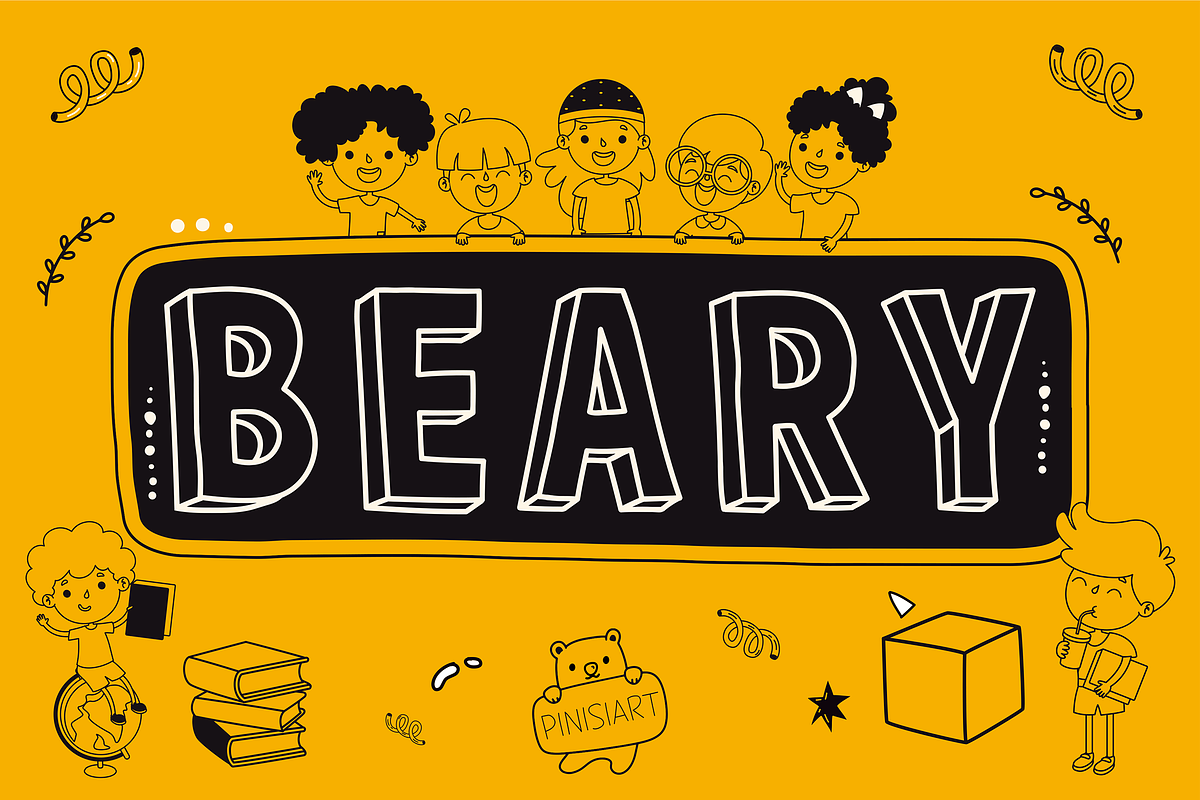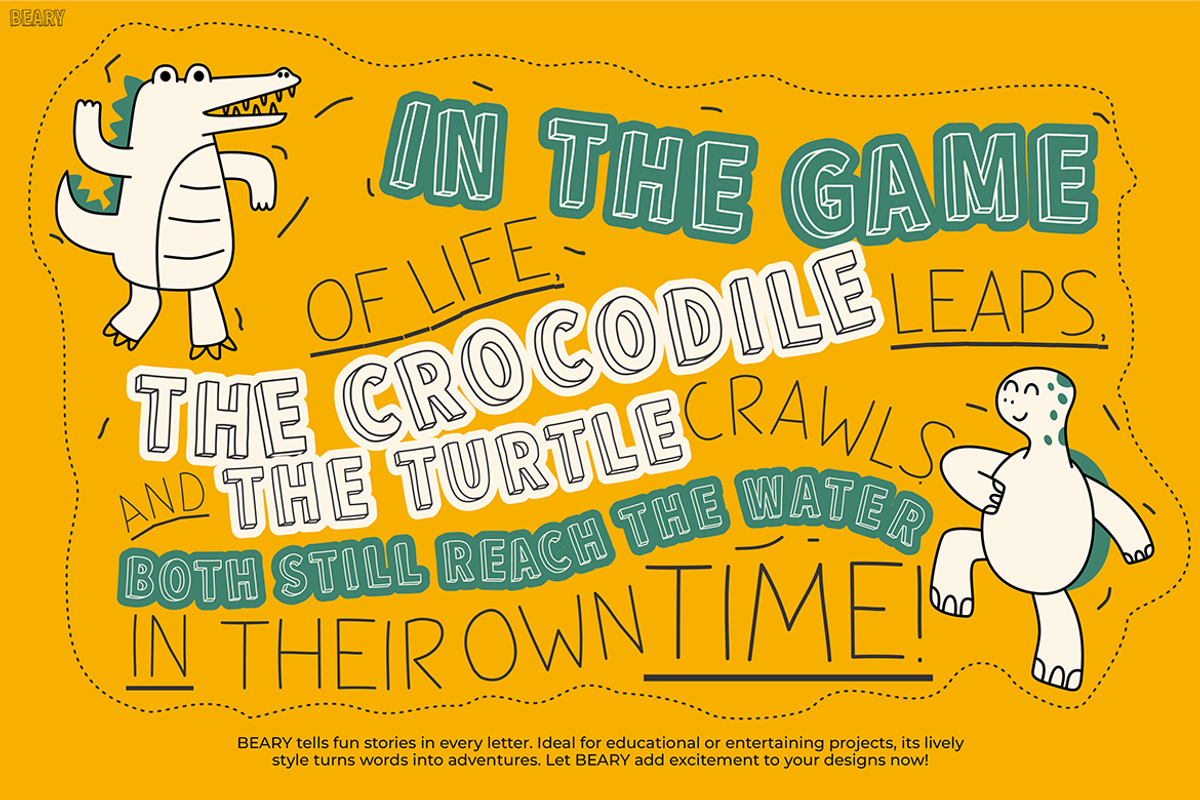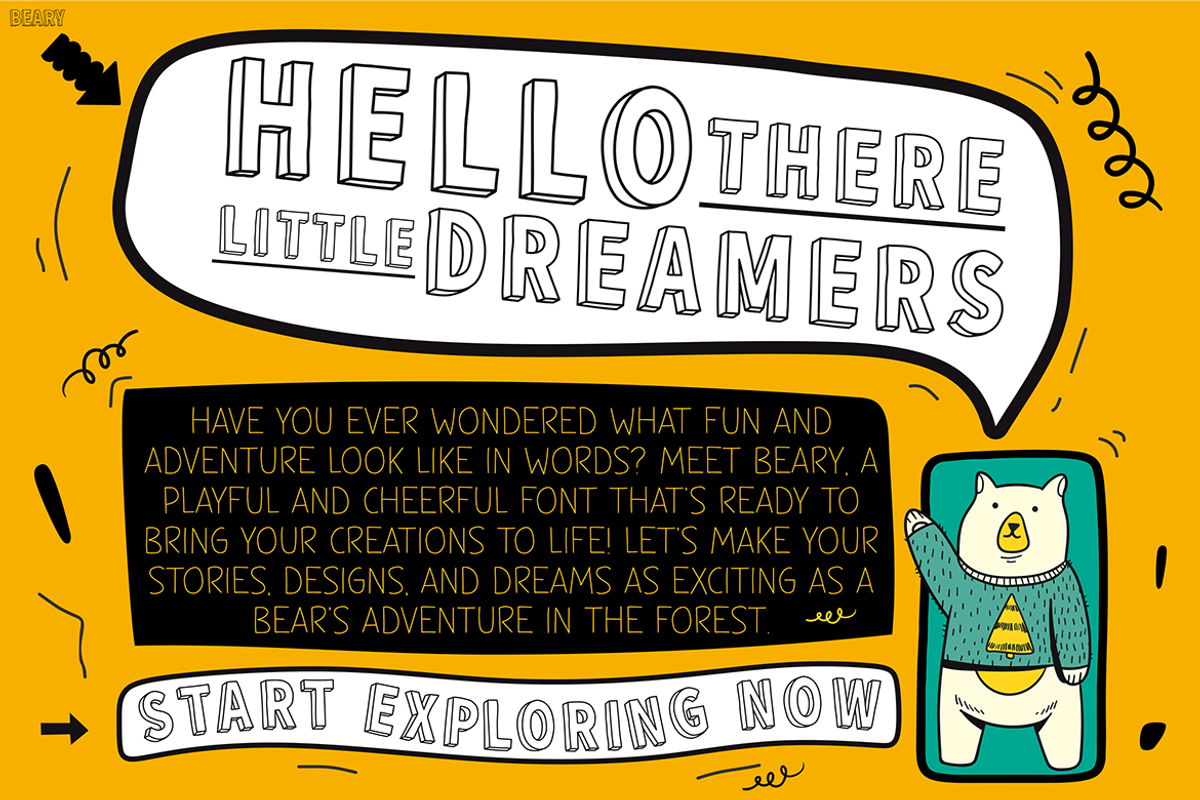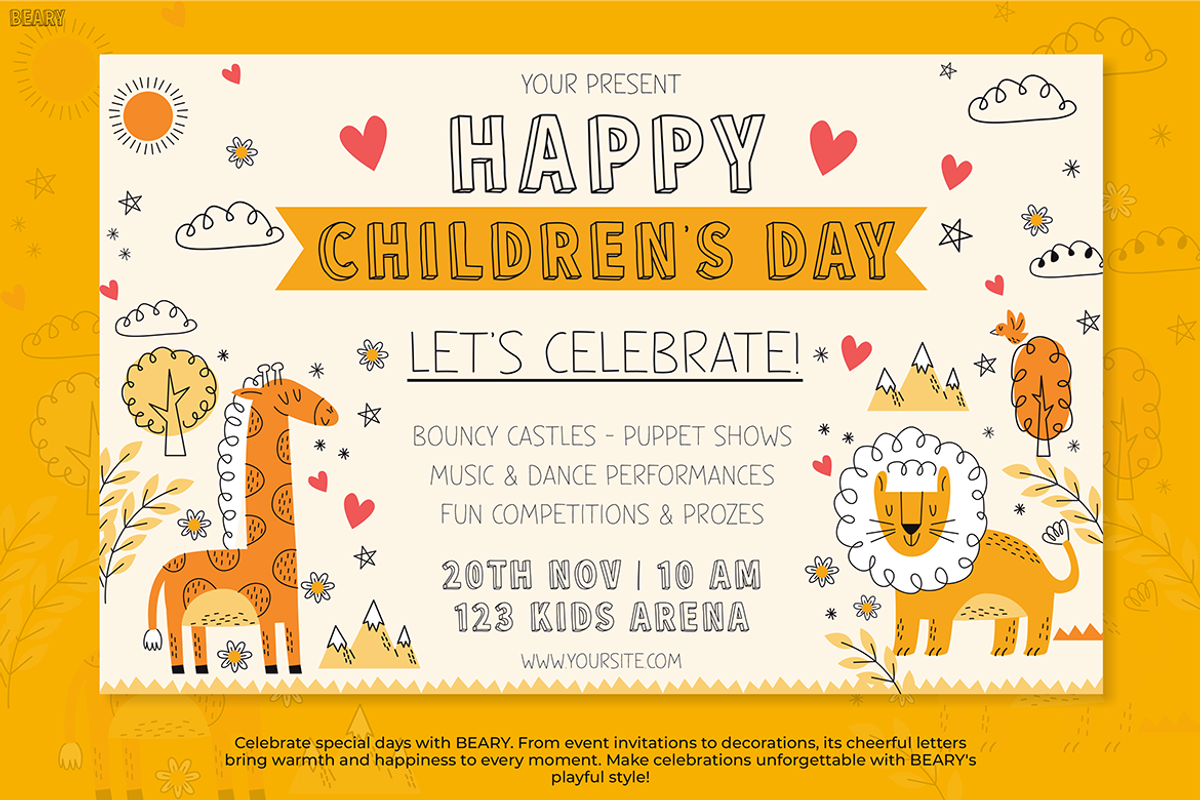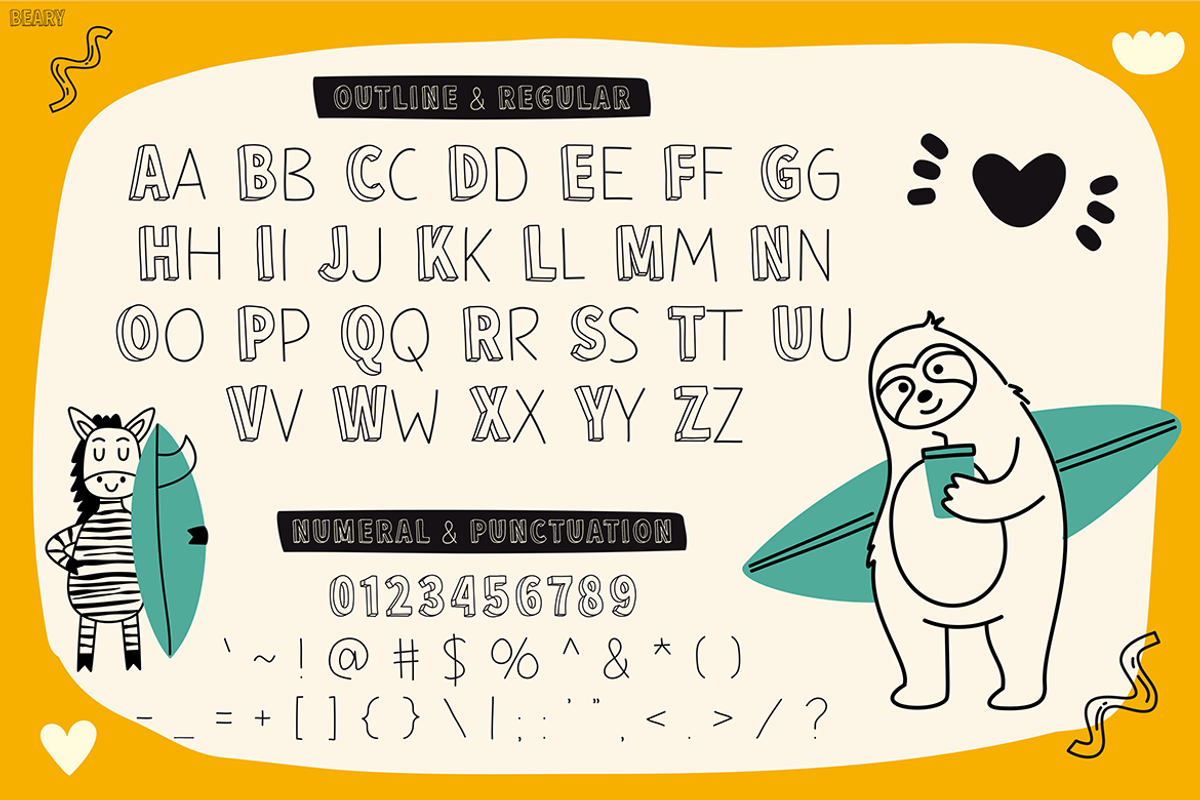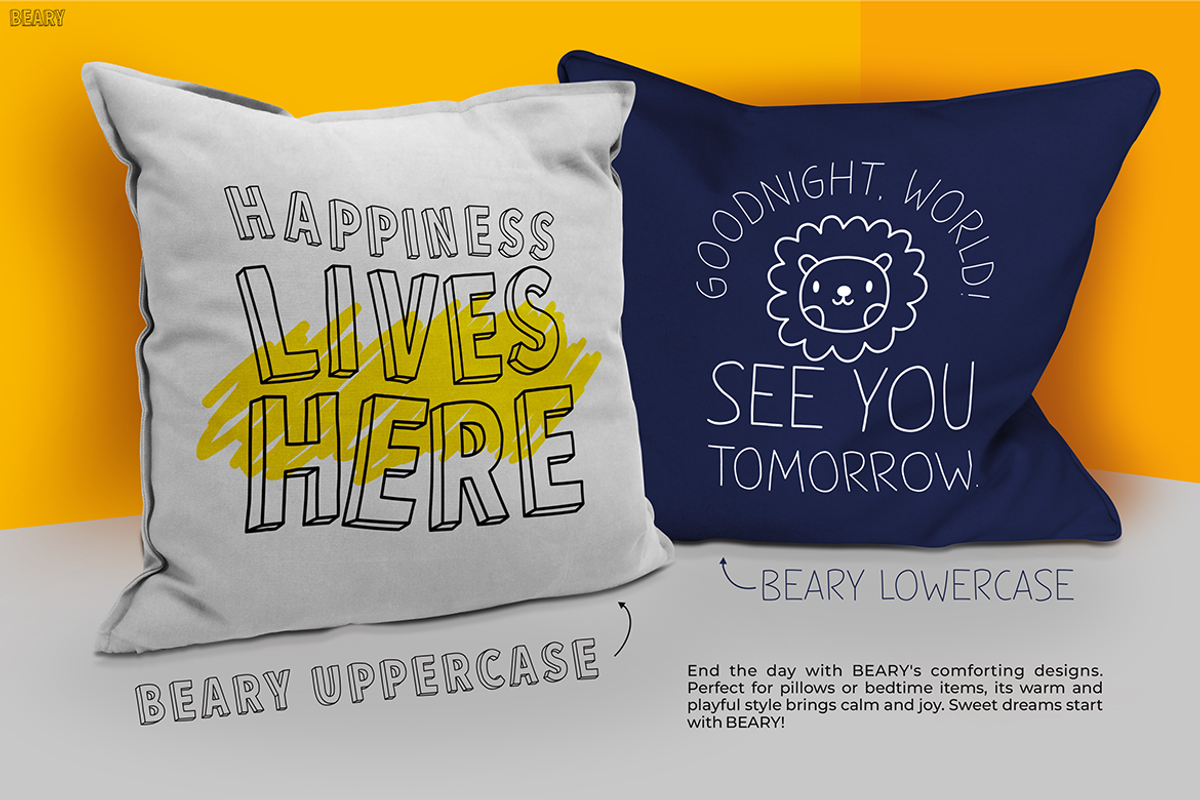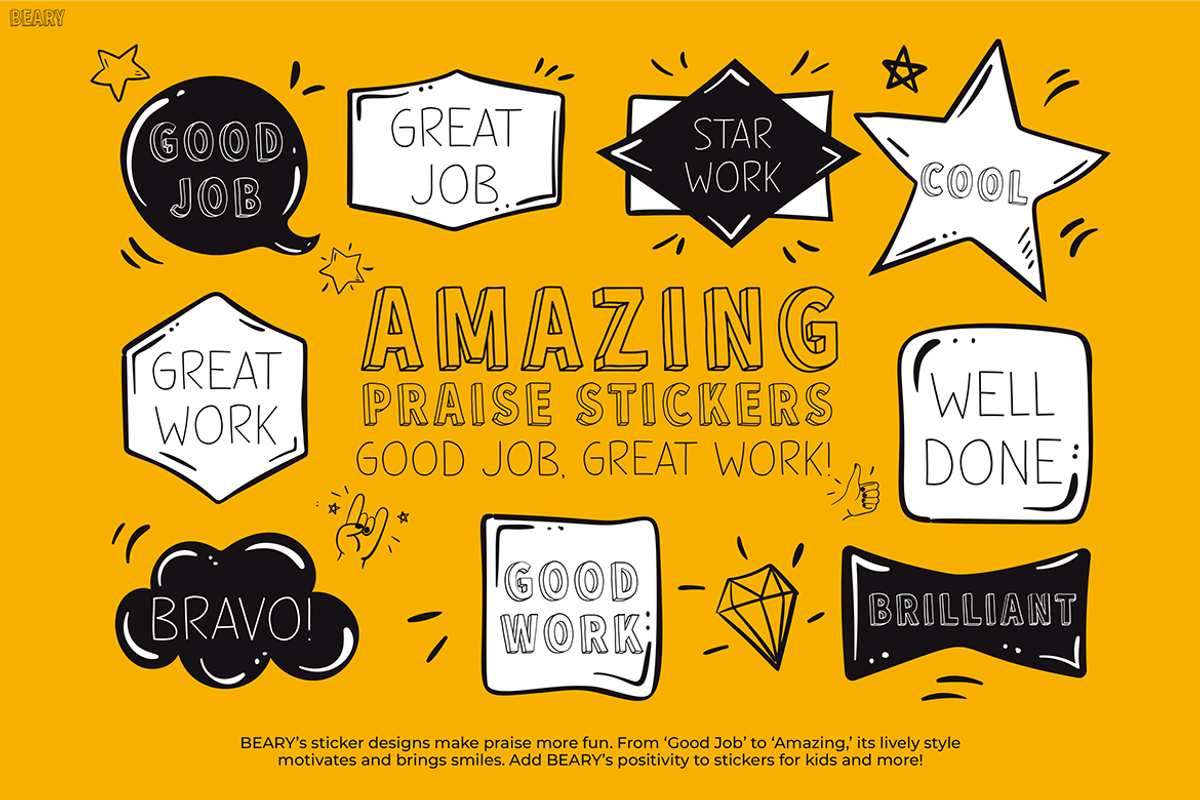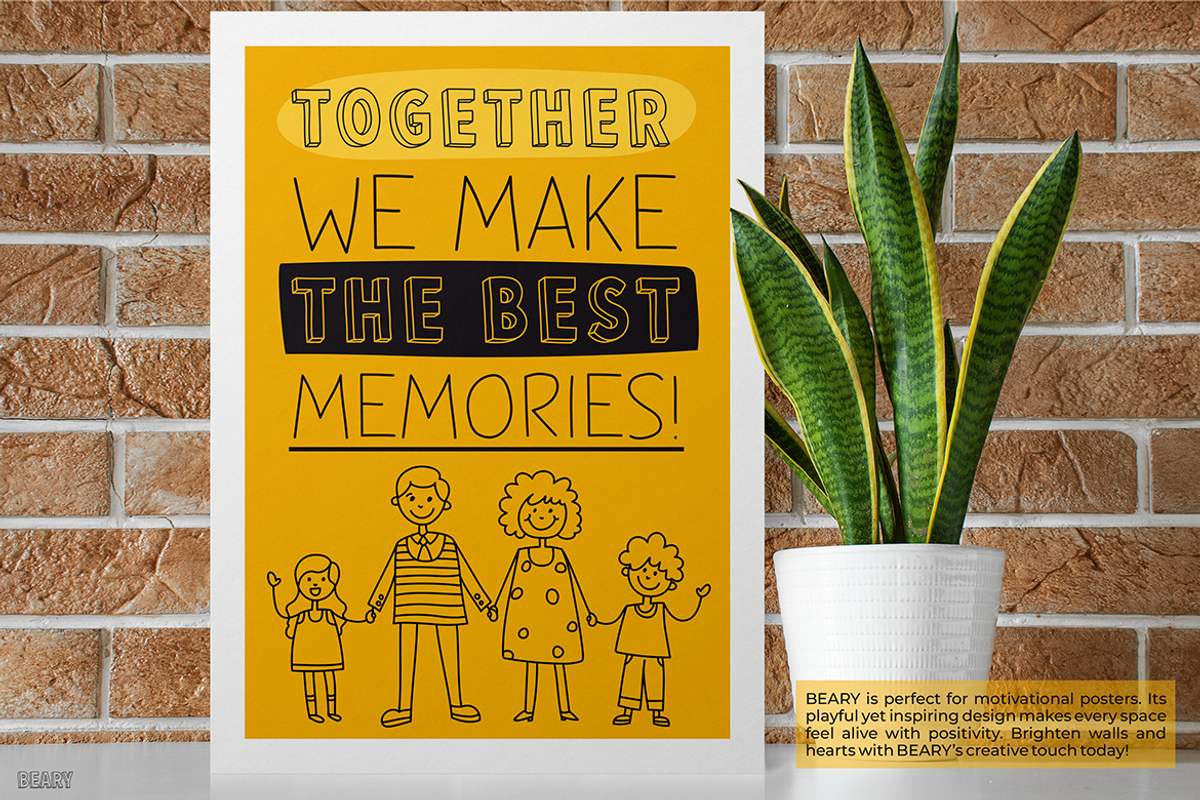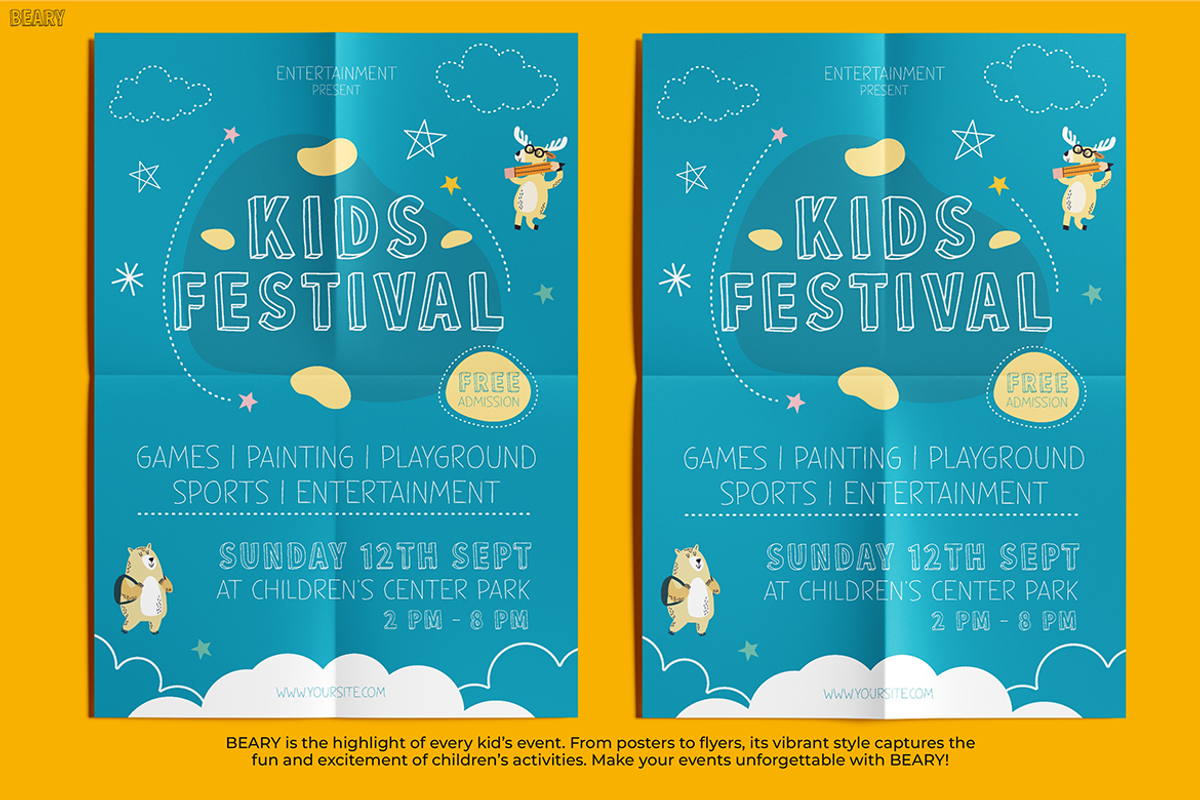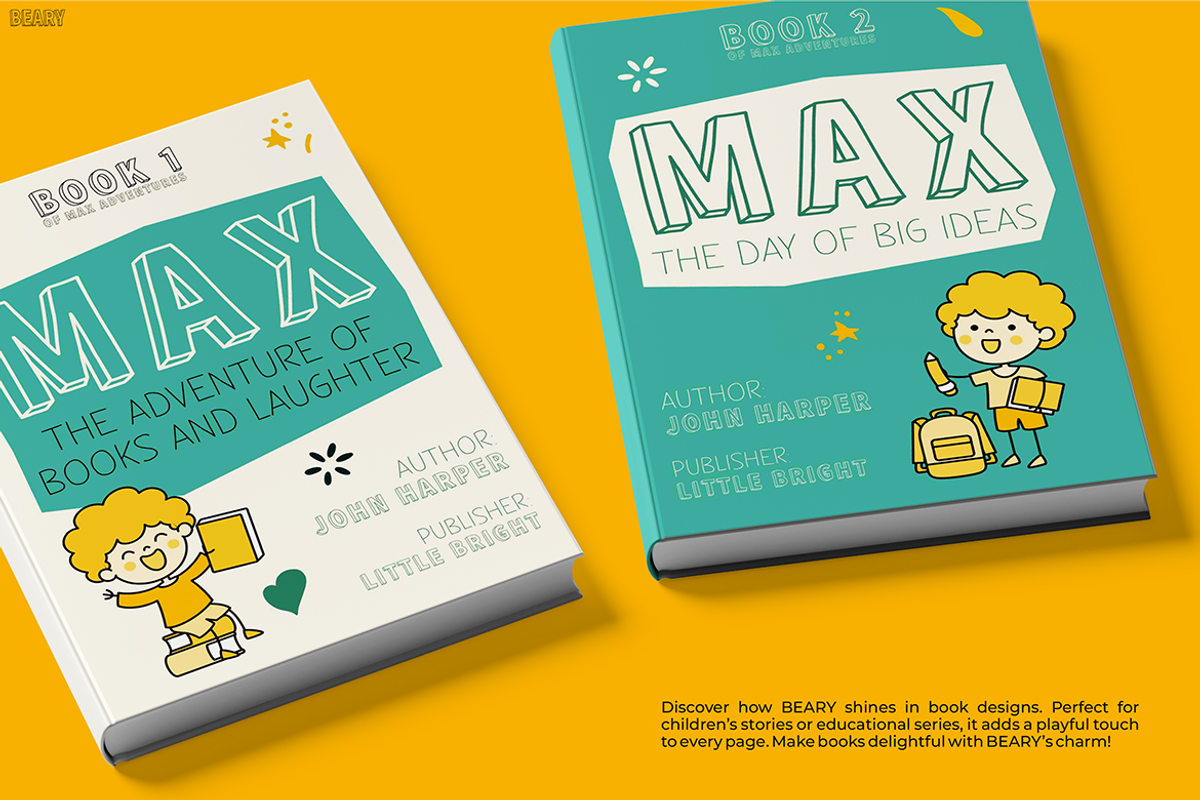
BEARY
The Kids Font BEARY is a playful and charming typeface designed to bring joy and creativity to any project. Featuring rounded edges and soft, hand-drawn strokes, this font captures the innocence and fun of childhood. Moreover, each letter feels like it’s leaping off the page with personality, making it perfect for projects that aim to delight young audiences. Additionally, the font’s design reflects a cheerful and welcoming tone, resembling characters inspired by teddy bears and playful doodles.
In addition to its whimsical design, the Kids Font BEARY works wonderfully in colorful and vibrant themes. Its approachable style ensures readability while adding a touch of whimsy to any design. For instance, it fits perfectly in educational materials, playful branding, or kid-friendly invitations. Furthermore, the soft curves and friendly appearance make it ideal for capturing the attention of children and parents alike. As a result, this font becomes an excellent choice for projects that require both fun and functionality.